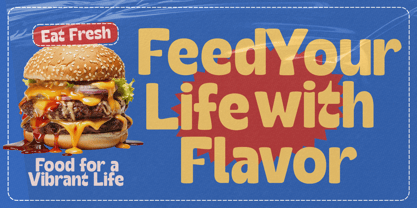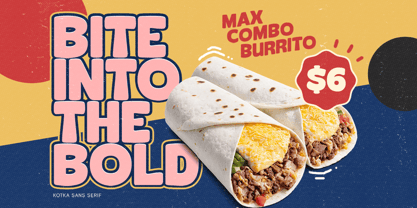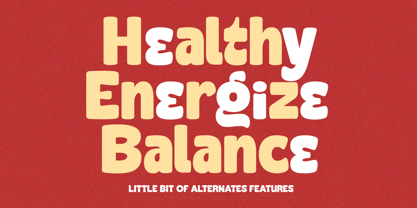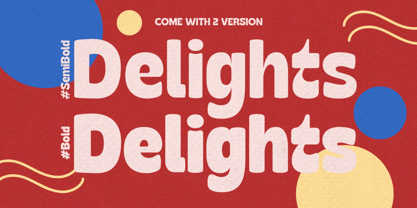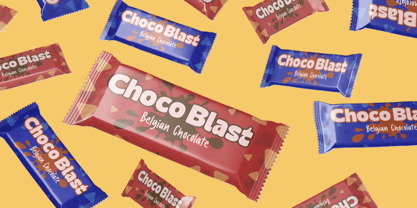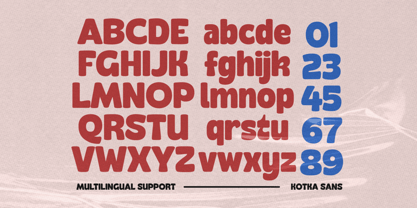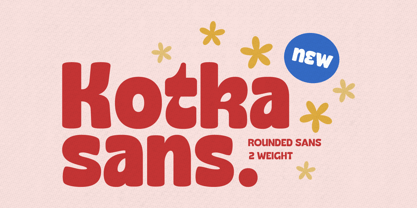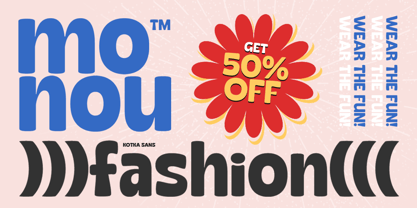
Kotka Sans
by Letterhend
The Kotka Sans Font Family was designed by Hendry Juanda and published by Letterhend. Kotka Sans contains 2 styles and family package options. More about this family
Kotka is a charming and playful sans serif typeface featuring a rounded style. Available in two weights—basic bold and semi-bold—this font is ideal for creating eye-catching headlines, logos, titles, and quotes. Its versatile design makes it perfect for formal applications, including invitations, labels, magazines, books, greeting and wedding cards, packaging, fashion branding, makeup promotions, stationery, and advertising materials.
Features :
• Uppercase & lowercase
• Numbers and punctuation
• Alternates Character
• Multilingual support
Designers: Hendry Juanda
Foundry: Letterhend